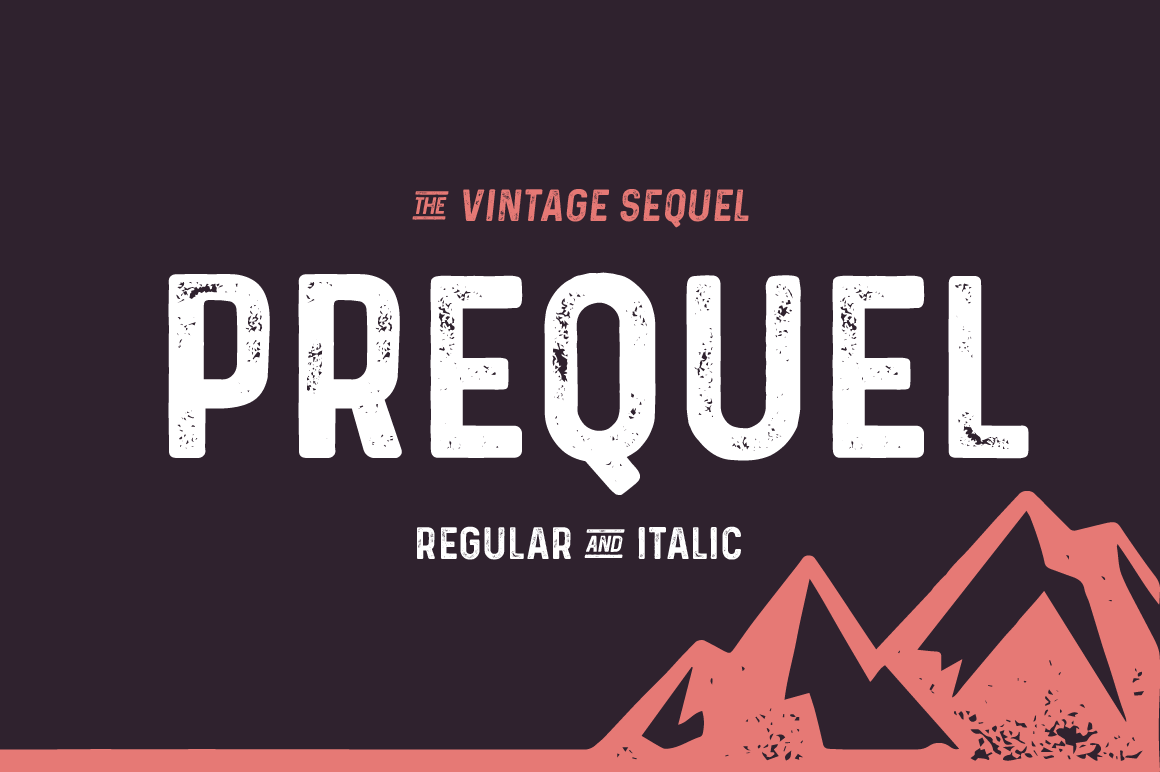
Prequel Typeface
Continue I would like to introduce to you a vintage typeface. You are a collector of fonts, it is a great choice. Introducing Prequel Typeface! Prequel designed by Philip Trautman. Prequel Typeface developed based on the old sequel, better kerning and a lower x-height. You’ll get the full set of 330 glyphs including numbers, many symbols and language support for many countries! It also features eight cool ligatures for unique designs and all of this in an italic version, too!